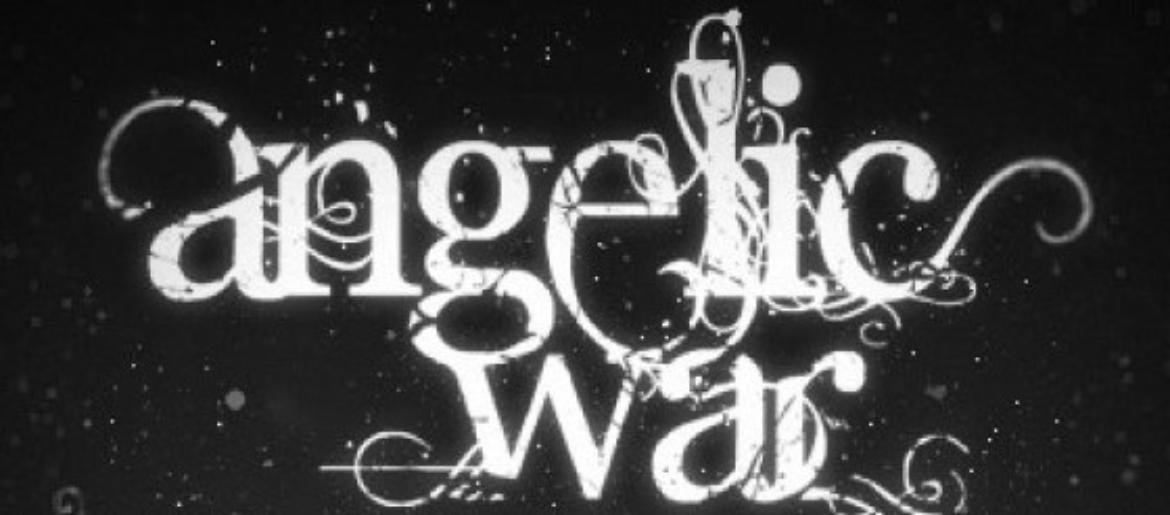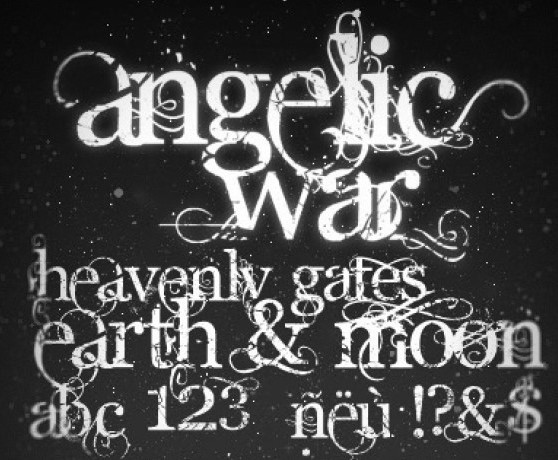
Angelic War Font
Angelic War font
Angelic War Font is a dramatic display typeface blending sharp forms with a dark, epic character. Its powerful style makes it ideal for game titles, posters, logos, album covers, and fantasy or battle-themed designs that demand intensity and impact.
➤ Font Name: Angelic War
➤ Designer: Sick Capital
➤ Style: Grunge Serif